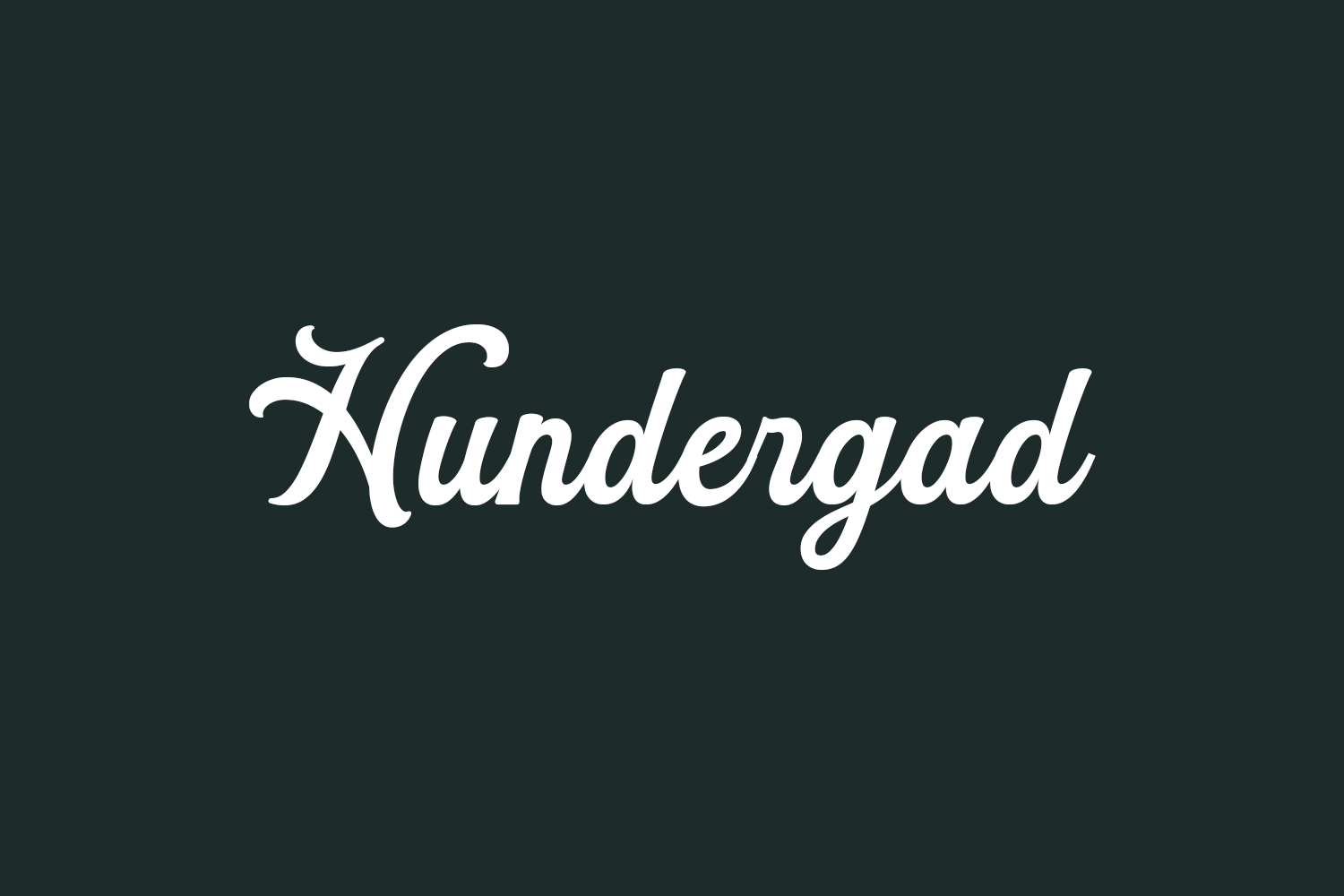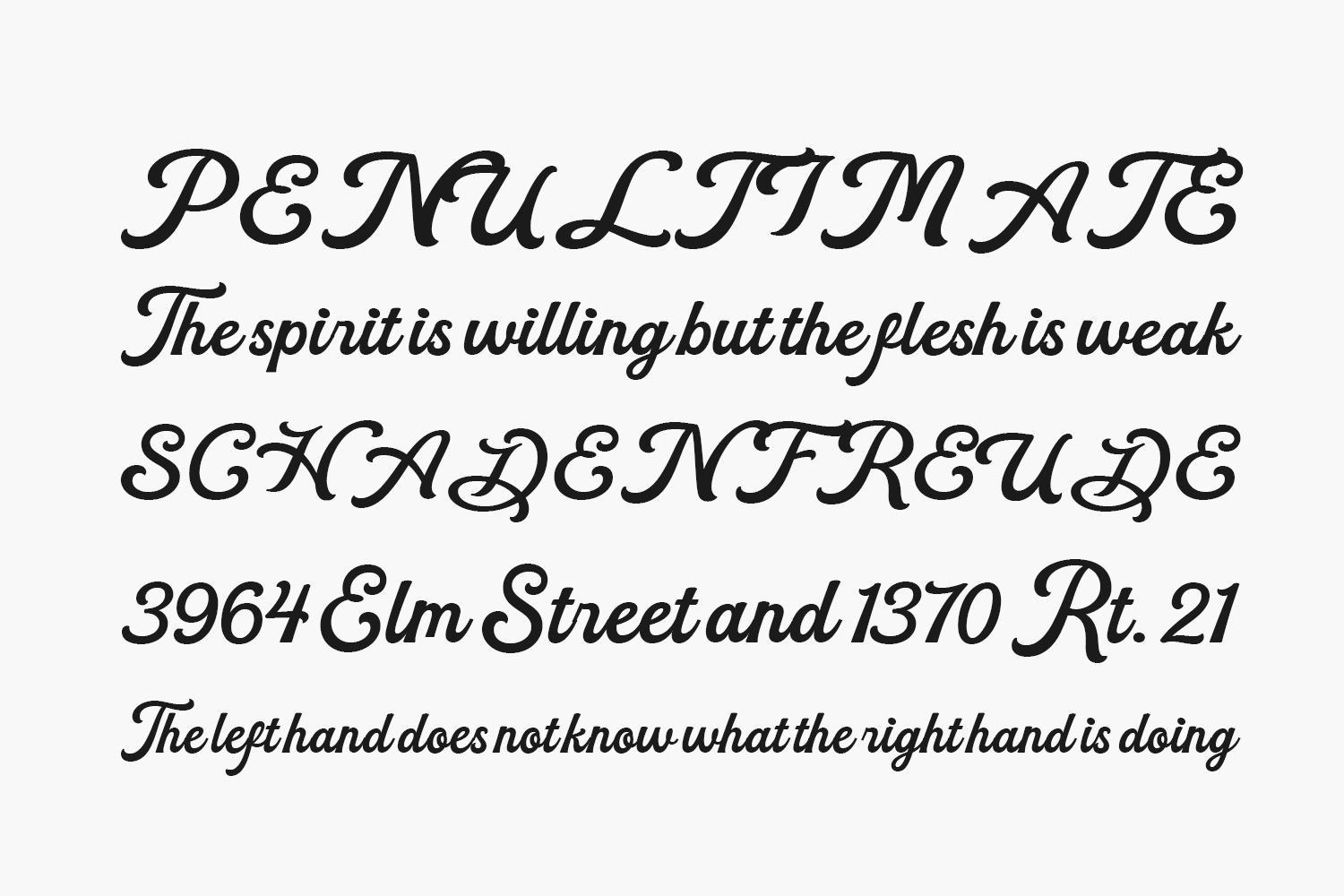
Hundergad Free Font is a captivating script font exuding a nostalgic vintage charm. Crafted to perfection, this font is an impeccable choice for logos and formal applications like invitations, labels, magazines, books, greeting and wedding cards, packaging, fashion, make-up, stationery, novels, as well as various advertising purposes. Embrace the timeless appeal of Hundergad and elevate your projects with its distinctive allure. Hundergad Free Font is free for personal use only. Please purchase the full version for commercial use.
Designed by Letterhend Studio